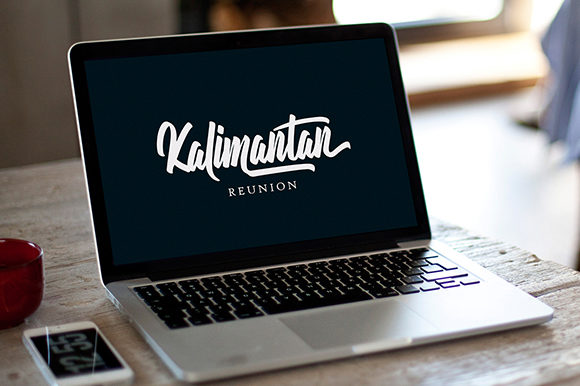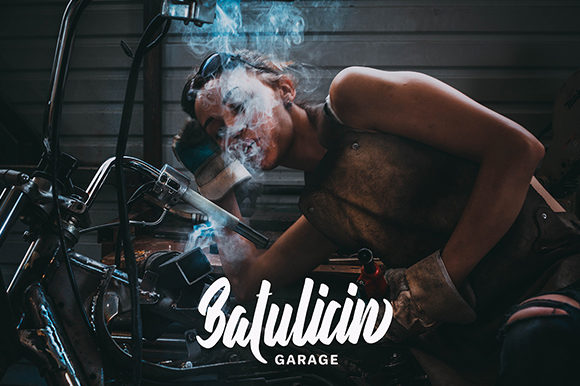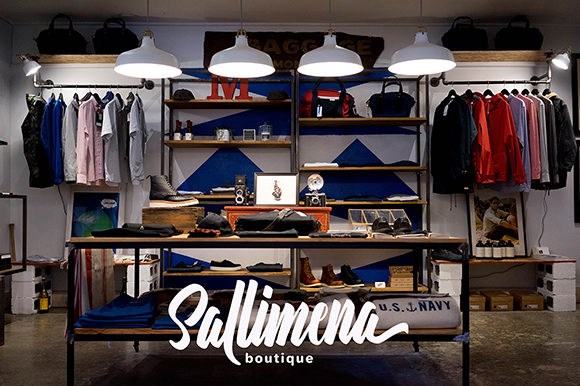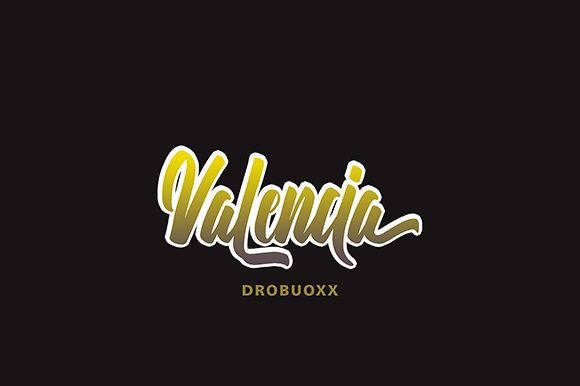
Discover the Unique Charm of Halimatun Font: Elevate Your Designs with Authentic Flair
In the world of typography, fonts play a crucial role in conveying the tone and personality of a design. For designers and crafters seeking a distinctive touch, Halimatun Font stands out as a remarkable choice. This handwritten font boasts an authentic twist, making it a perfect addition to various creative projects. Let’s dive into the captivating world of Halimatun Font and explore how its bold swashes can inspire your next design endeavor.
The Essence of Halimatun Font
Halimatun Font is a unique handwritten typeface that exudes warmth and character. Its authentic twist sets it apart from more conventional fonts, offering a refreshing alternative for those looking to add a personal touch to their designs. The font’s natural flow and fluid strokes create a sense of movement, making it ideal for projects that require a dynamic and expressive feel.
Key Features of Halimatun Font
- Handwritten Authenticity: Halimatun Font is crafted with love and care, reflecting the imperfections and charm of handwritten text. This authenticity adds a human touch to your designs, making them more relatable and engaging.
- Bold Swashes: One of the standout features of Halimatun Font is its bold swashes. These elegant flourishes can be used to add a touch of sophistication and drama to your designs, making them perfect for headings, titles, and emphasis.
- Versatility: Halimatun Font is incredibly versatile, suitable for a wide range of design applications, from digital projects like websites and social media graphics to print materials such as brochures, posters, and invitations.
Halimatun Font offers endless possibilities for creative expression. Designers can use it to:
- Create stunning wedding invitations and party decorations that set the tone for a memorable event.
- Develop branding materials that stand out, such as logos, business cards, and letterheads.
- Design social media graphics that capture attention and convey a brand’s personality.
- Produce print materials like brochures, flyers, and posters that engage and inform.
Crafters can also explore various projects, such as:
- Hand-lettered art and calligraphy pieces.
- Custom signs and decorations for special occasions.
- Journaling and scrapbooking projects that benefit from a personal touch.
Tips for Getting the Most Out of Halimatun Font
To maximize the impact of Halimatun Font, consider the following tips:
- Mix and Match: Combine Halimatun Font with other fonts to create visual interest and hierarchy in your designs.
- Experiment with Swashes: Don’t be afraid to try out different swash combinations to find the perfect fit for your project.
- Play with Colors: Halimatun Font looks great in various colors, so feel free to experiment and find the perfect hue to match your design’s mood.
Halimatun Font is a unique and versatile typeface that offers designers and crafters a chance to add an authentic, handwritten touch to their projects. With its bold swashes and natural flow, this font is sure to inspire creativity and elevate designs to new heights. Whether you’re working on a digital project or a print material, Halimatun Font is an excellent choice for those seeking a distinctive and engaging look.